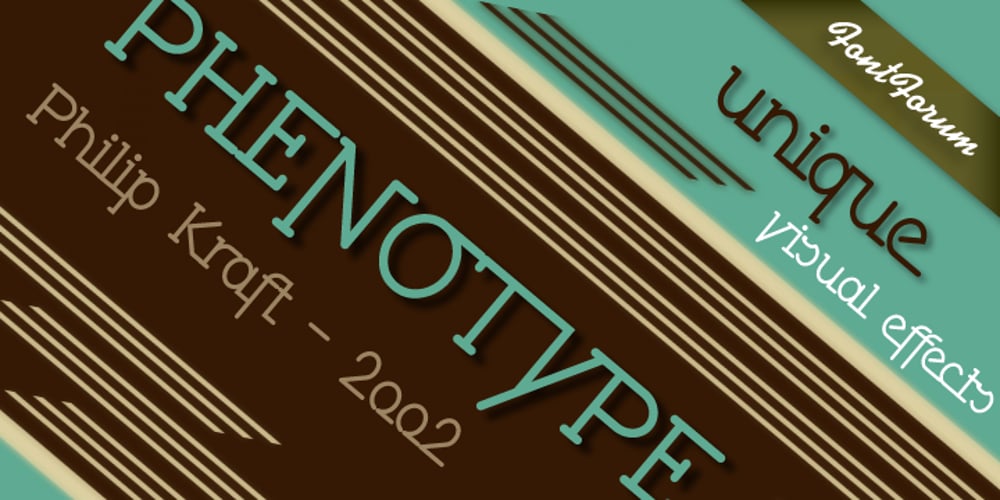
Phenotype
Phenotype font
Phenotype Font Family was designed by Philip Kraft and published by URW Type Foundry. Phenotype contains 3 styles and family package options. The idea about Phenotype was to achieve a unique visual effect by touching serifs. Characters form ligatures, but every combination looks different. Touching serifs form connecting character images, e.g. like logotypes on old refrigerators or oldtimer cars, something like the fonts of Leslie Carbarga. The design idea is based on monospaced and heavy serif fonts like Courier, Isonorm Memphis or Rockwell. However, obviously, Phenotype is not a monospaced typeface.